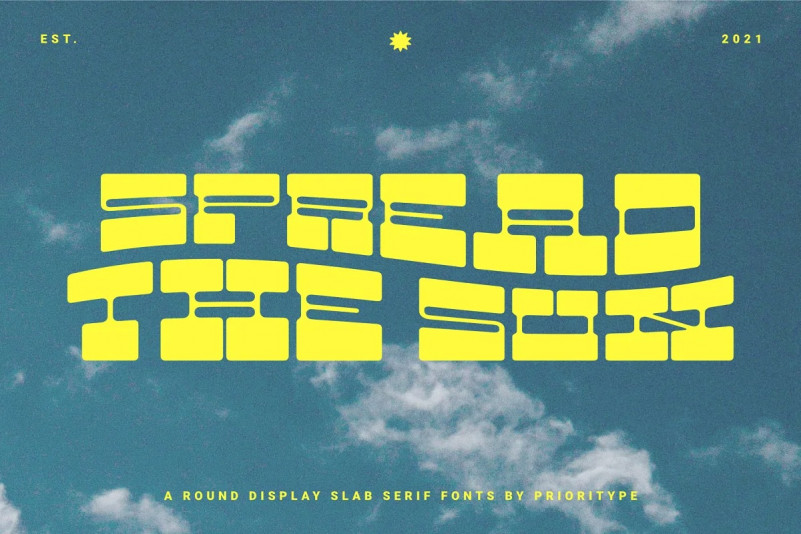
Urban Java Display Font
It’s a seventies style font with bold serifs and reverse contrast inspired by western hippie culture. This typeface was formed to refresh a contemporary youth street design. Firm and soft impression can be spelled out.
It really looks good to be consumed by today’s youth. Good for use in street designs such as t-shirts, posters, sticker, album or magazine covers and more.